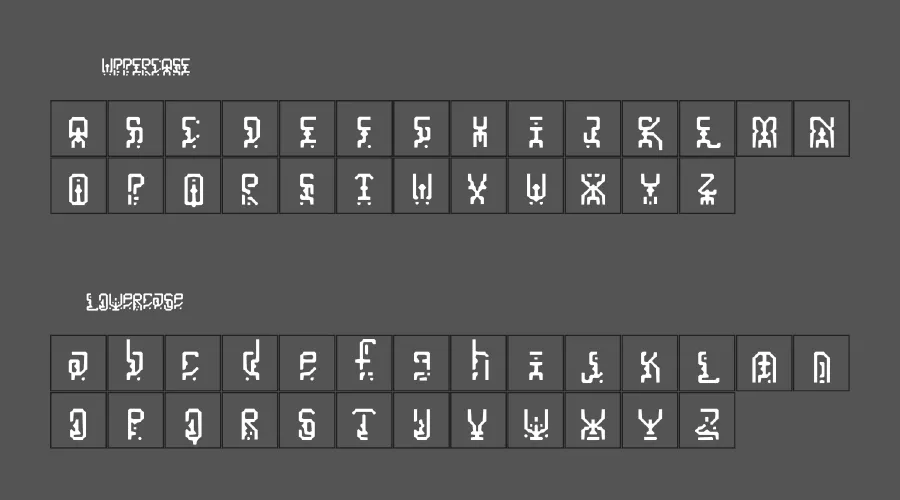
The Spiritual Warfare Font is a Fancy typeface that has been designed by a famous graphic designer known as the name of Mr. FISK. This font contains all types of alphabet characters including uppercase and lowercase letters. You may easily download it free from here for various working systems like Windows and Mac.
The pairing quality of this typeface is amazing and can easily be paired with freak font and create stunning projects. You should choose the right font for your projects, and this font is the perfect choice for all your fancy and stylish purposes.